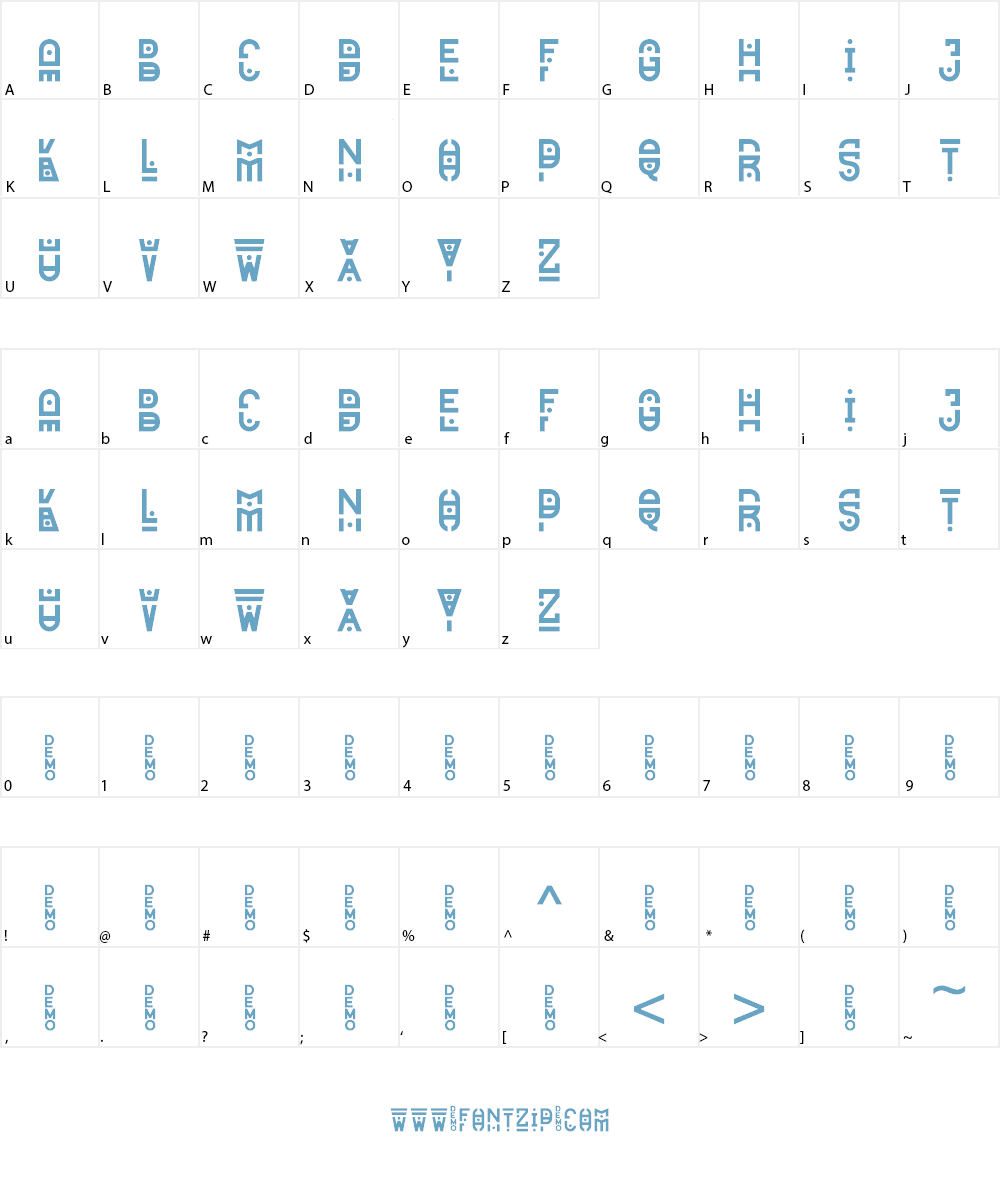
This fountain is created by the exploration of the genre and urban musician style, its design also has a little futuristic concept, and is thought to be used for logos and projects very dynamic, animated and colorful.
Esta fuente es creada por la exploración del genero y estilo músico urbano, su diseño también tiene un poco de concepto futurista, y esta pensada para ser usadas para logos y proyectos muy dinámicos, animados y de mucho color.